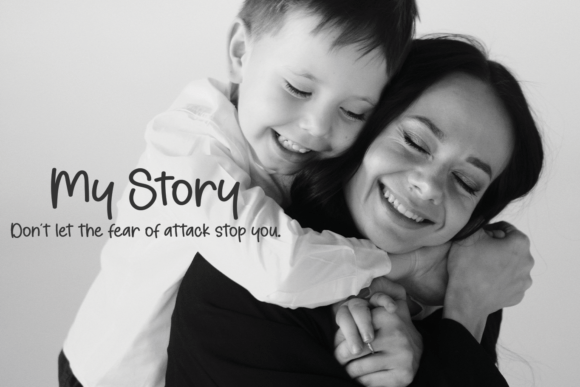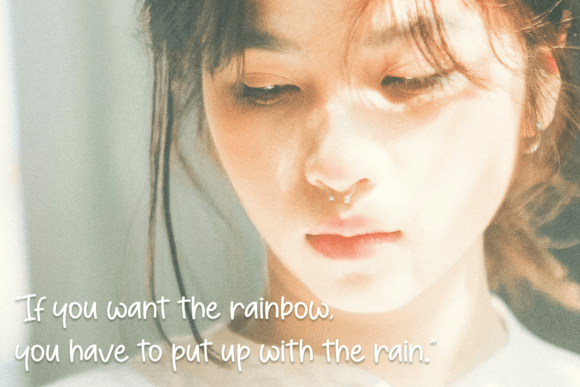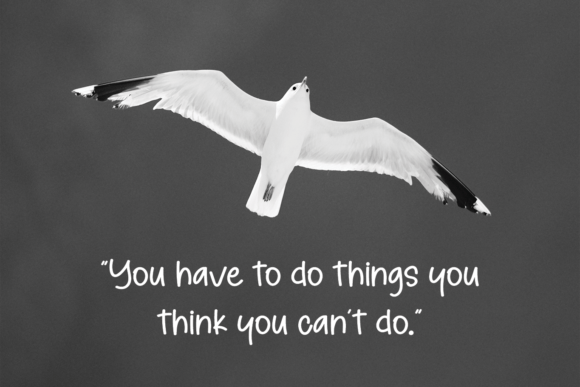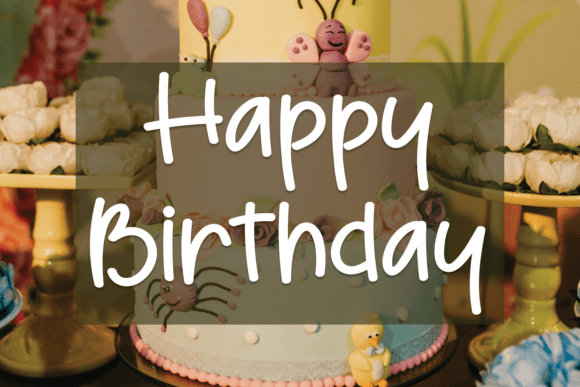
Introducing Happy Birthday Font: Elevate Your Designs with Elegance
Are you a designer or crafter looking for the perfect font to add a touch of sophistication and whimsy to your creations? Look no further than the Happy Birthday font, a stylish and incredibly elegant script font that is sure to elevate your designs to the next level.
A Font for Every Occasion
Happy Birthday font is a versatile and beautiful script font that looks stunning on a variety of design materials, including:
- Wedding invitations: Add a touch of romance and elegance to your wedding stationery with this gorgeous font.
- Thank you cards: Express your gratitude in style with Happy Birthday font.
- Quotes: Make your inspirational quotes stand out with this beautiful script font.
- Greeting cards: From birthday cards to holiday greetings, this font is perfect for any occasion.
- Logos: Add a touch of sophistication to your business logo with Happy Birthday font.
- Business cards: Stand out from the crowd with a beautifully designed business card featuring this elegant font.
Why Choose Happy Birthday Font?
So, what makes Happy Birthday font so special? Here are just a few reasons why designers and crafters love this font:
- Elegant and sophisticated: Happy Birthday font has a stylish and refined look that is perfect for designs that require a touch of elegance.
- Handwritten touch: This font has a beautiful, handwritten feel that adds a personal touch to any design.
- Versatile: Happy Birthday font can be used for a wide range of design projects, from wedding invitations to business cards.
- Easy to read: Despite its elegant and cursive nature, Happy Birthday font is easy to read, making it perfect for designs that require a clear and legible font.
Tips for Using Happy Birthday Font
To get the most out of Happy Birthday font, here are a few tips to keep in mind:
- Pair with a sans-serif font: For a beautiful contrast, pair Happy Birthday font with a clean and simple sans-serif font.
- Use for headlines and titles: Happy Birthday font is perfect for headlines and titles, where its elegant and cursive nature can really shine.
- Add a personal touch: Use Happy Birthday font to add a personal touch to your designs, such as in a quote or a message.
Where to Use Happy Birthday Font
Happy Birthday font is perfect for a wide range of design projects, including:
- Wedding and event planning: Use Happy Birthday font to create beautiful wedding invitations, save the dates, and other event materials.
- Stationery and paper crafts: Add a touch of elegance to your stationery and paper crafts, such as greeting cards, thank you cards, and journal pages.
- Branding and marketing: Use Happy Birthday font to create beautiful and sophisticated logos, business cards, and marketing materials.
In conclusion, Happy Birthday font is a beautiful and elegant script font that is perfect for designers and crafters looking to add a touch of sophistication and whimsy to their creations. With its versatile and refined look, Happy Birthday font is sure to elevate your designs to the next level. Whether you’re creating wedding invitations, thank you cards, or business cards, this font is sure to impress.
Get Creative with Happy Birthday Font